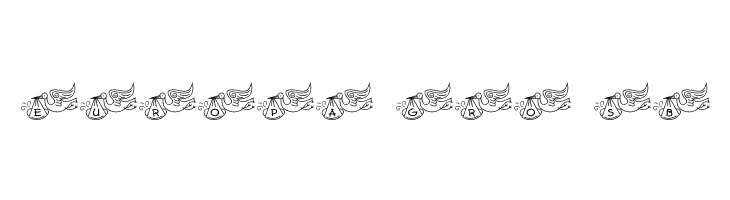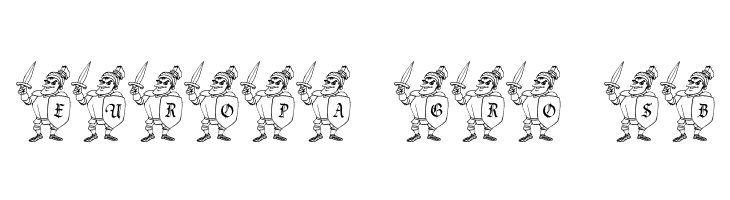
A playful font with characters inside bowling pins and balls.
A playful font with letters embedded in school-themed doodles.
A playful font with letters inside car silhouettes, perfect for fun and whimsical projects.
A whimsical font with winged circular letters, perfect for fantasy themes.
A playful, cartoonish font with Spartan characters integrated into each letter.
A whimsical decorative font with birds carrying letters, perfect for playful designs.
A decorative font with letters encased in sunflower motifs, offering a bold and artistic style.